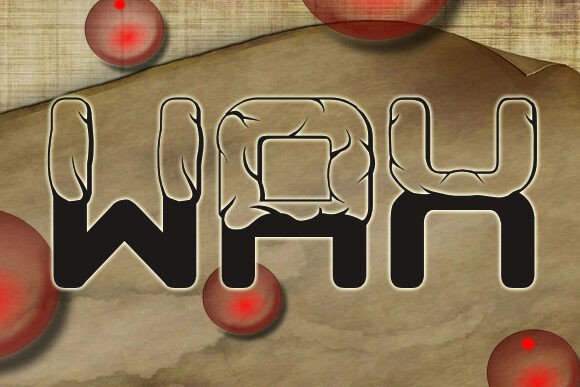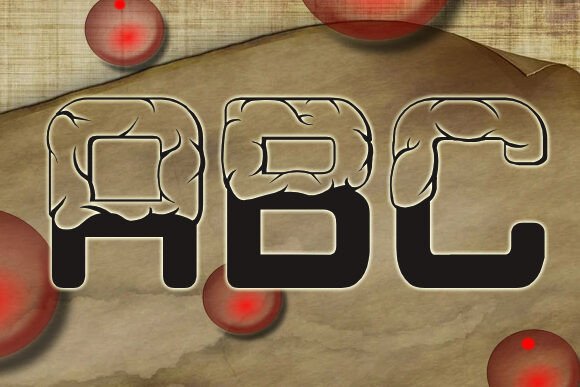
Introduction to Seal Font
Seal is awesome decorative font that will fit perfectly on any of Your designs Use this font on posters, flyers and brochures.
Seal Font offers exceptional quality and versatility, making it a valuable addition to your design toolkit. Whether you’re creating for personal projects or commercial use, Seal Font delivers professional results.